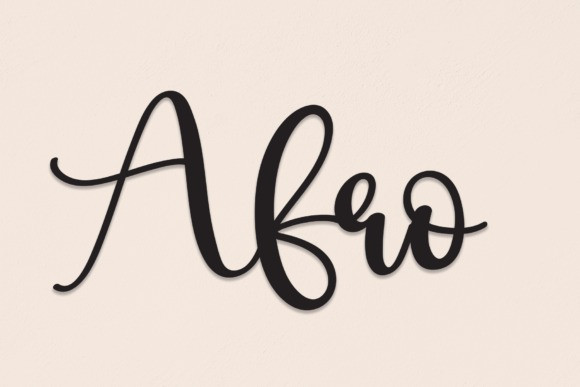
Afro Script Font
Afro Script Font is a fun and friendly handwritten font. Use it to turn any design idea into a true standout. Get inspired by its unique charm and create lovely designs.